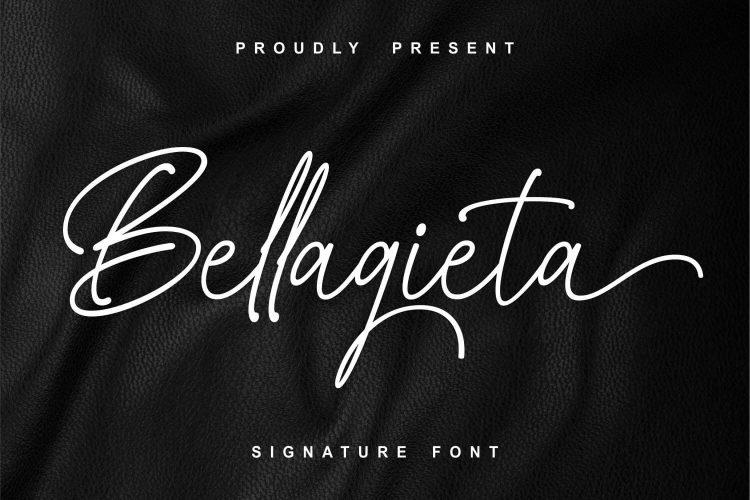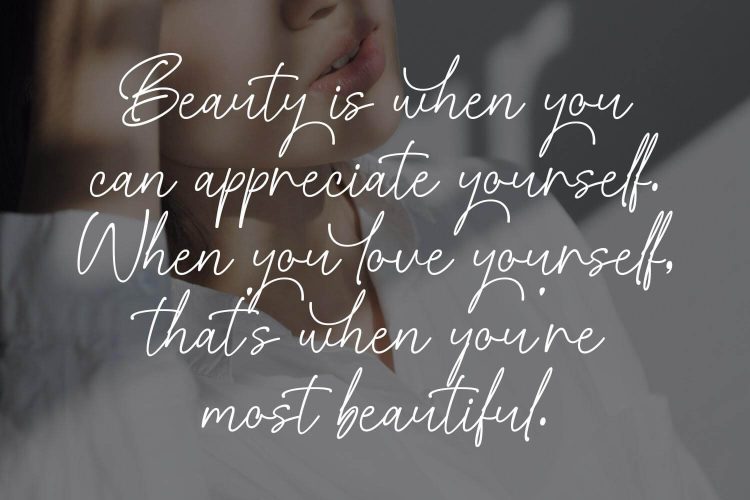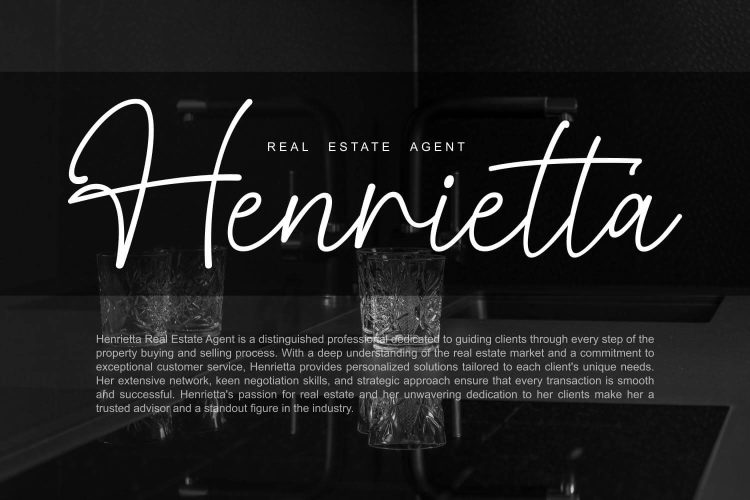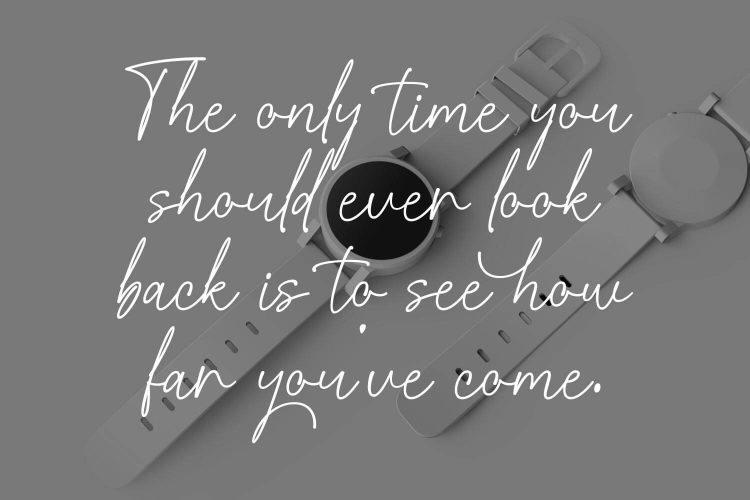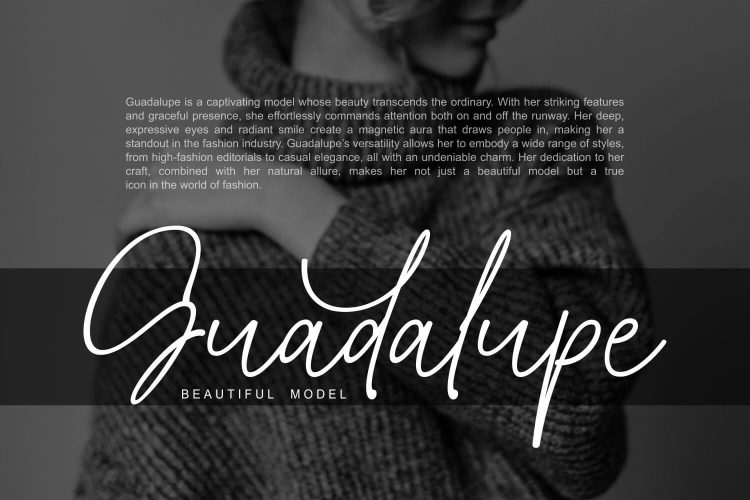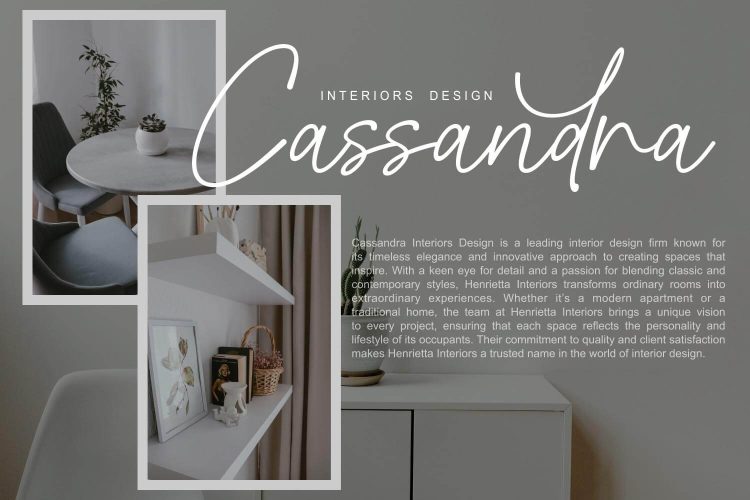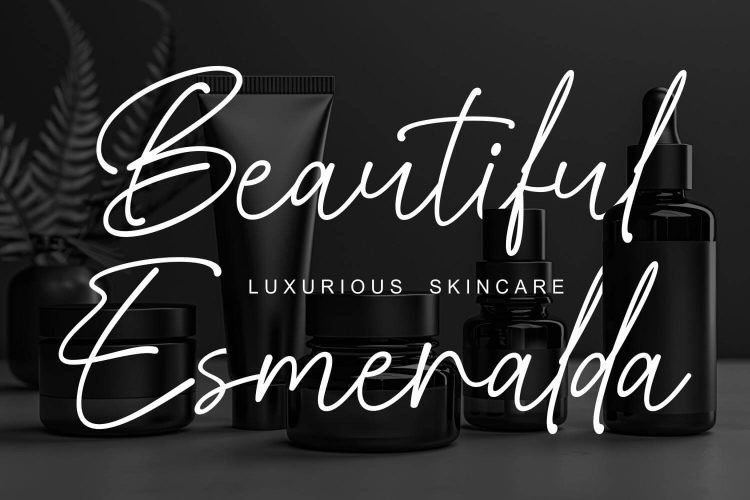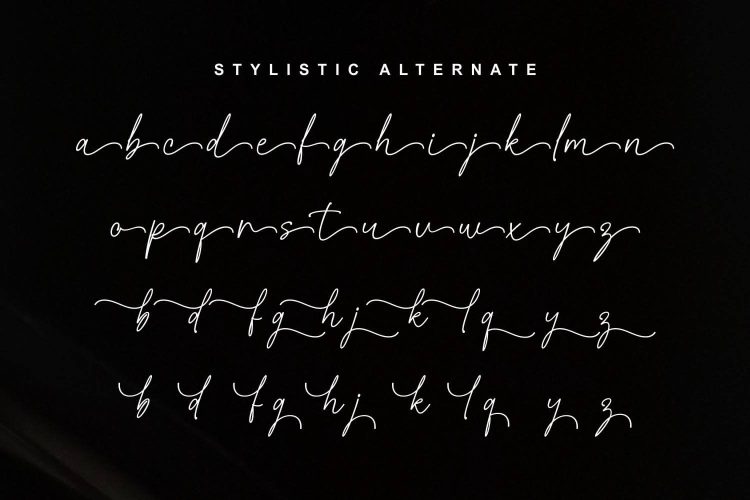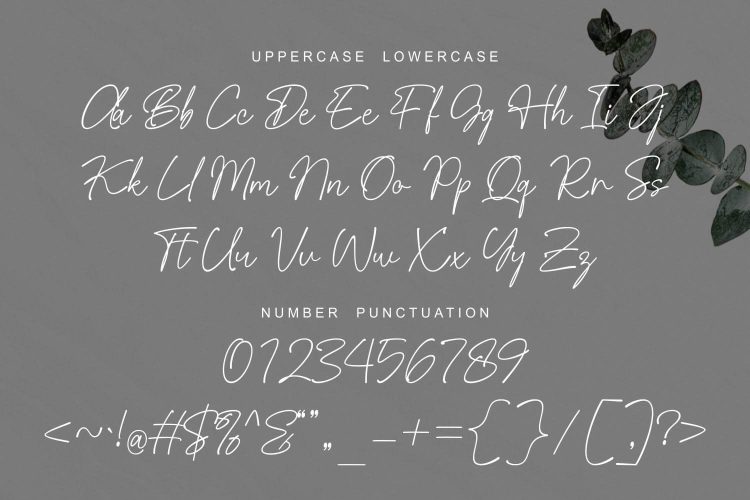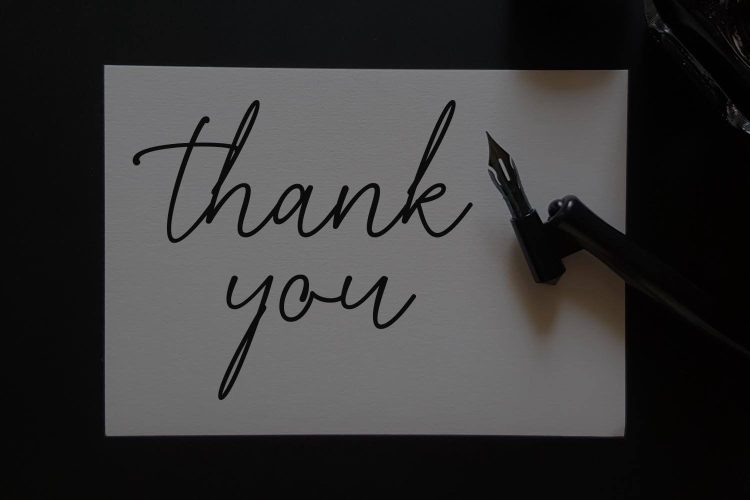
Bellagieta – Signature Font by Imiftype Studio is a refined and versatile typeface, perfect for elevating any creative project. Whether you’re working on logos, branding, home decor designs, product packaging, or creating quotes, posters, and greeting cards, Bellagieta adds a touch of luxury and sophistication. Its graceful script is ideal for projects that demand an elegant and polished aesthetic.
Features:
- Ligatures & Alternates with Swashes
- Uppercase and Lowercase Letters
- Numerals and Punctuation (OpenType Standard)
- Accents (Multilingual Support)
- Stylistic Sets for Ligatures and Alternate Styles
Why Choose Bellagieta? Bellagieta is designed to make your projects stand out with a unique luxury script. Its flexibility and range of features allow you to create stunning designs effortlessly, making it the perfect choice for any high-end project.